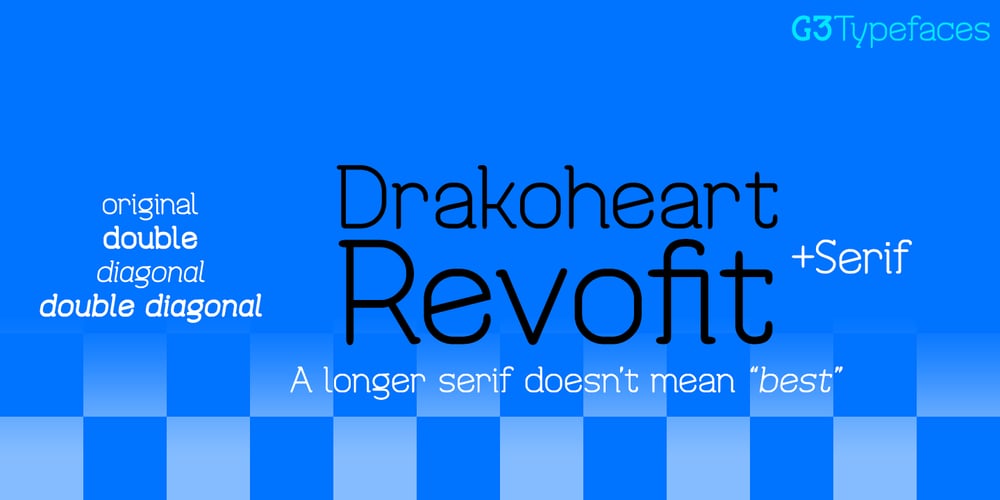
Drakoheart Revofit Serif Font Family was designed by Yun González and published by G3 Typefaces. Drakoheart Revofit Serif contains 5 styles and family package options. Drakoheart Revofit Serif is a variation of the original font, Drakoheart Revofit. It was inspired in one of my favorite fonts, Museo by exljbris. This font has a fresh look, making the reading nice and comprehensible. Its serifs are shorter than in other fonts, avoiding excessive tracking between the characters but without taking away its beauty and readability, saving the elegance of serif fonts, of course. Finally, using half serifs, the final appearance is dynamic and modern.